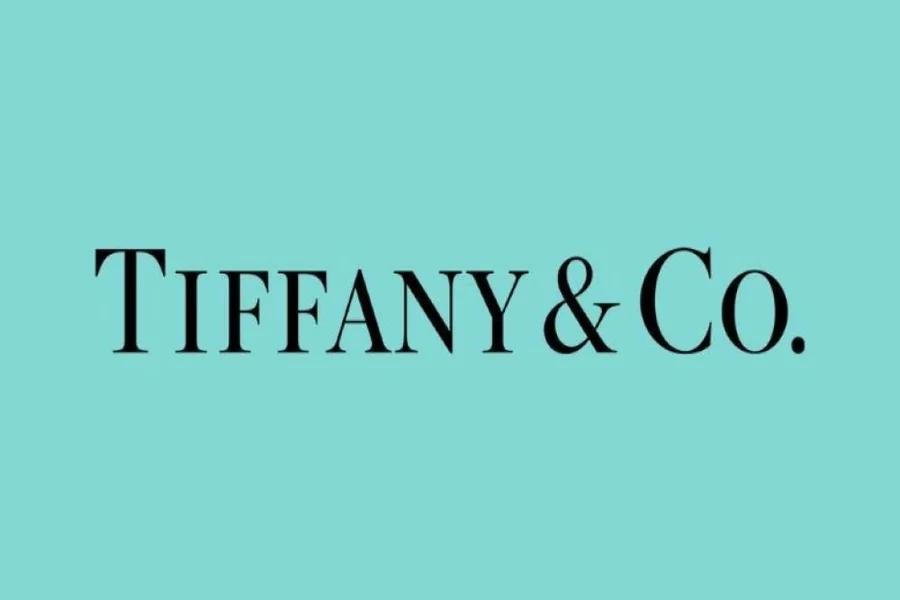
Tiffany Font Style Guide For Elegant Design Lovers
Tiffany Font is reputed to be graceful and tender-looking. It feels calm and refined. It is popular with designers and romantic themes and fancy designs. The appearance is mostly handwritten and smooth. This balance is appropriate to branding and creative engagements.
Tiffany Font is characterized by a smooth movement. The lines are pleasant and inviting. It is popular among many designers who would wish to convey a feeling of warmth and style. It is effective on beckoning fashion designers and style brands. Tiffany Font is so attractive because it appears modern and classic at the same time.
The font style is suitable in the digital and print. It is easy on social posts and printed cards. The letter structures are casual and intimate. This is the reason why a lot of creators use it as an emotional narrative.
Tiffany Font is applicable in logos as well. It is not loud and gives it personality. It creates harmony when it comes into play with soft colors. The font never feels heavy. It gives space to breathe.
Tiffany Font is used by the designers of feminine brands. But it is also applicable with little projects. One of its best qualities is the flexibility of it. This is what makes it to keep rising in popularity.
History and Inspiration Behind Tiffany Font
Tiffany Font is inspired by the beauty of hands and elegance. It has a touch of the handwritten notes and artistic writing. It is perceived by many designers as a mixture of traditional and contemporary designs.
Tiffany Font had publicity on social sites. The images that designers posted were friendly and cozy. This contributed to the rapid growth of the font style. It gained popularity among artists who desired to be soft in their work.
Tiffany is known as a name that is related to beauty and clarity. This provides the font with a great emotional connection. When individuals look at it they are assured of confidence and peace. The emotional connection is emotionally effective in its construction.
As time went by the font changed slightly. The smooth curves and smooth flow were retained in each version. This assisted it in remaining abreast with trends.
Tiffany Font has its beauty in its simplicity. It does not try to be bold. It simply feels right. This is why it is applicable in almost all design themes.
Where Tiffany Font Works Best
Tiffany Font is effective in most creative rooms. It glorifies in wedding designs and greetings. It is also suitable with beauty brands and lifestyle blogs.
Tiffany Font is utilized by the creators of social media to make quotations and captions. It puts character to the message without subduing it. This renders content warm and friendly.
Tiffany Font is also popular among web designers in the use of the font in the headers. It does not make it difficult to read, but rather adds sophistication. Combined with plain body text it appears balanced.
Tiffany Font is also used to package products. It gives a handmade feel. This is effective with candles skincare and fashion products.
Individual undertakings gain as well. This font is softer in journals planners and art prints. It brings a human touch which comes true.
How to Use Tiffany Font in Design
Balance is important in the use of Tiffany Font well. Combine it with body texts that are simple in nature. This makes designs user-friendly.
Use it with headings or brief expressions. This brings out the beauty of the letters. This style does not want long paragraphs.
When working with Tiffany Font, soft colors are chosen. Neutrals and pastels are the best. Vivid colors can make it less classy.
Spacing also matters. Give the font room to breathe. This gives it the appearance of being clean and professional.
FAQs
What is Tiffany Font used for?
Tiffany Font is used for branding invitations social posts and creative designs
Is Tiffany Font good for logos?
Yes it works well for soft and elegant logos
Can Tiffany Font be used for digital design?
Yes it looks great on websites and social media
Is Tiffany Font easy to read?
Yes when used in short text and proper spacing
Does Tiffany Font work for modern design?
Yes it blends classic charm with modern style